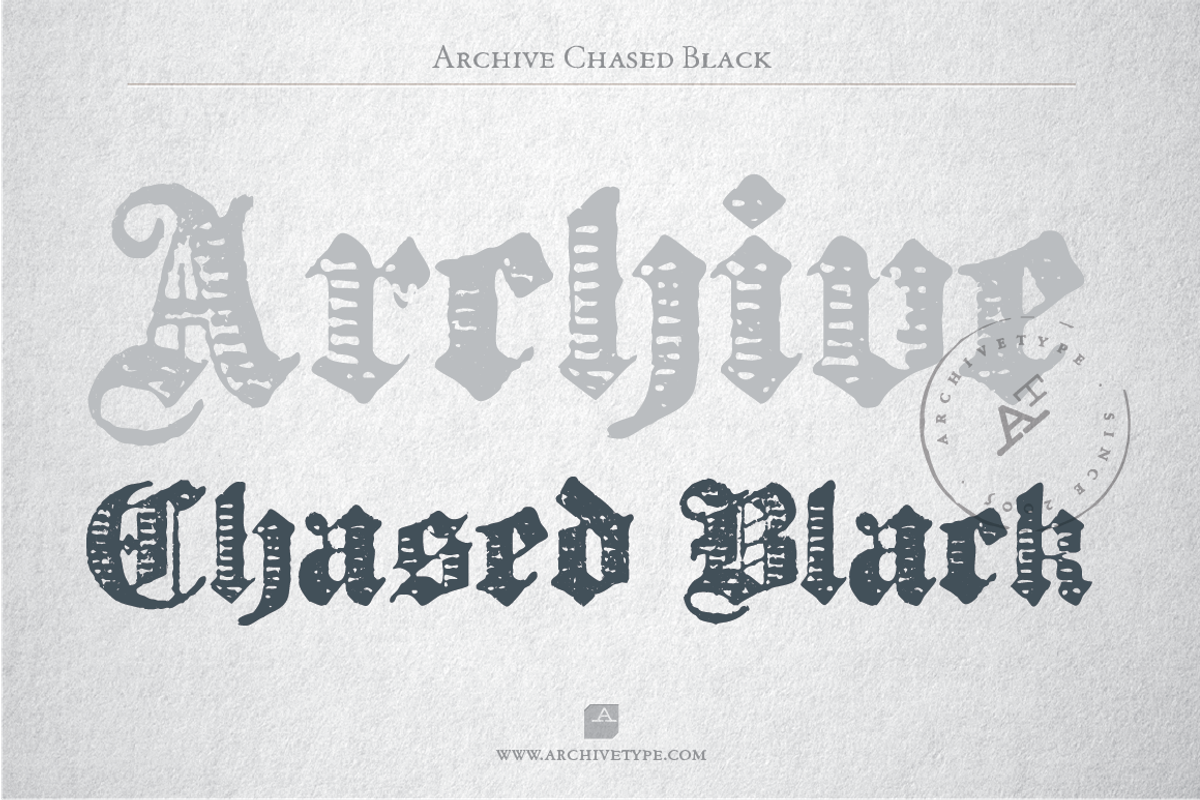
Archive Chased Black Free Download
Archive Chased Black Font Free Download
You must purchase this font for commercial use. However, you can download Archive Chased Black Font Free Download for testing purposes. Archive Chased Black is a bold, dynamic display font designed to make a statement. With its thick, strong lines and unique design, this font is perfect for creating eye-catching headlines, logos, posters, and any design project that requires high-impact typography.
The robust and distinctive style of Archive Chased Black makes it ideal for projects that need a modern, edgy feel. Whether you're working on branding for a bold new company, creating promotional materials, or designing for a creative event, this font adds personality and strength to your designs.